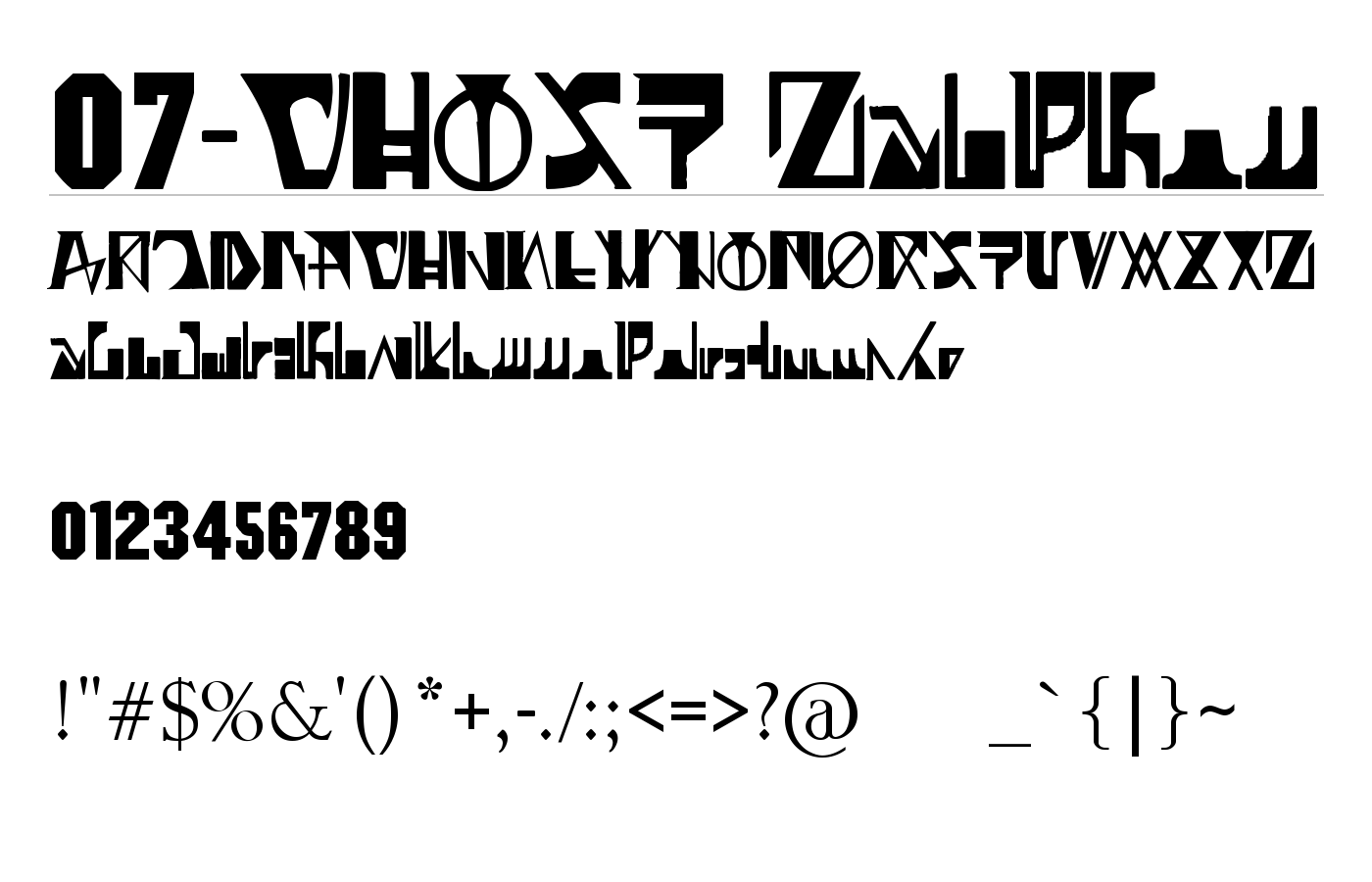
07-GHOST Zaiphon is a bold, geometric display font with a futuristic and mysterious vibe. Its sharp, angular letterforms blend solid, blocky uppercase characters with highly stylized lowercase shapes, creating a unique, almost alien aesthetic perfect for sci-fi, fantasy, or gaming designs. Best suited for impactful headlines or logos, this font captures attention with its unconventional and edgy personality.
07-GHOST Zaiphon Font
About 07-GHOST Zaiphon Font